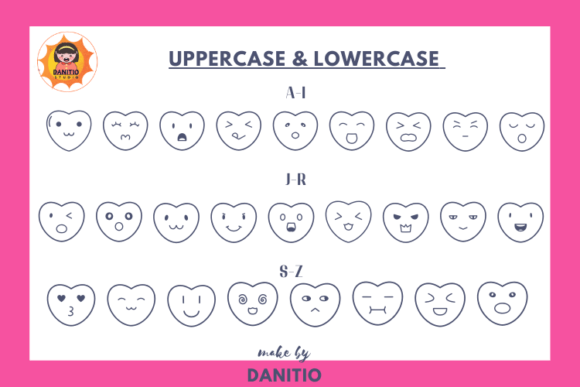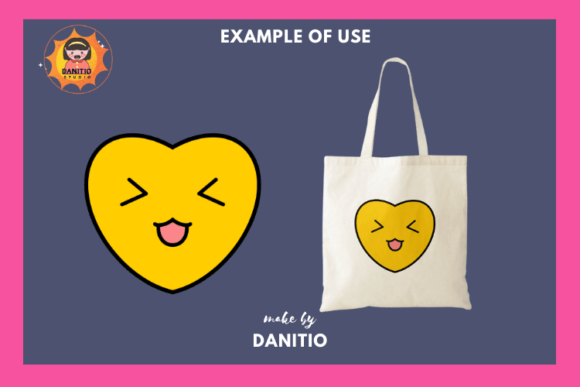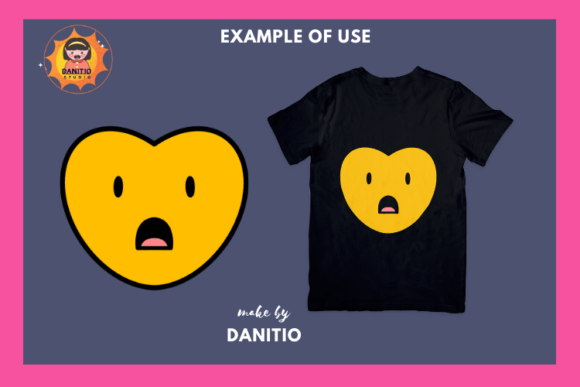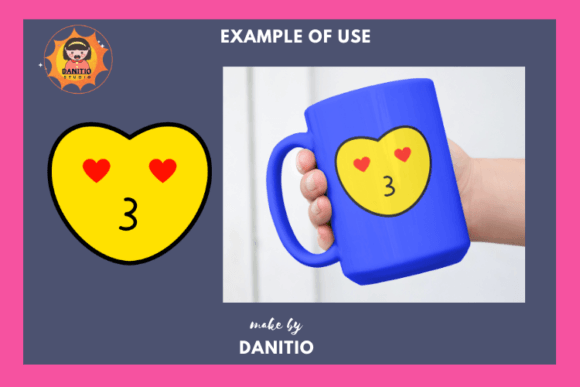
Introduction to Emotion Heart Font
The Emotion Heart font is a Dingbats font featuring heart-shaped faces with various emotions.
With its distinct style, it is ideal for design essentials Whether you use digital artefacts Presentations or greeting cards, t-shirts, mugs, tote bags, or whatever product you think is appropriate.